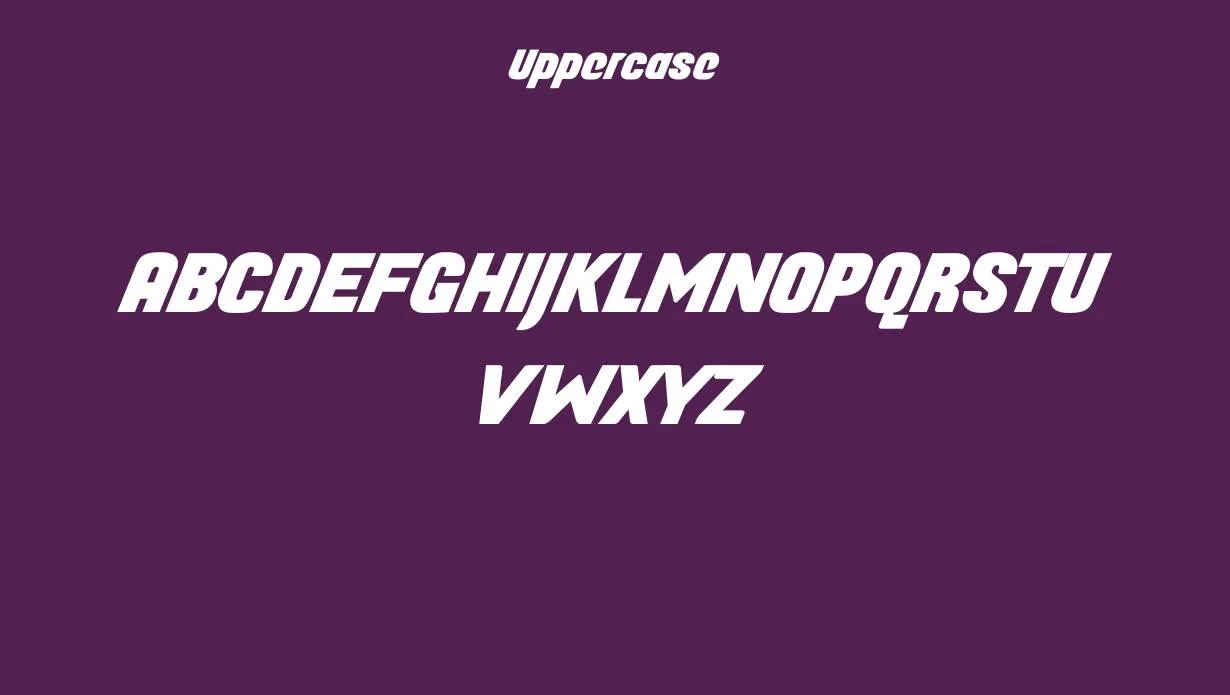
Longhaul Font is a very clear Sans-Serif font with high readability in Italic writing style. The look of this font is very bold and attractive.
Longhaul Font Family
The weight of the font is bold and its width is medium (normal). It is good for both print and digital media. For making attractive designs in Adobe Photoshop you can use this font as well.